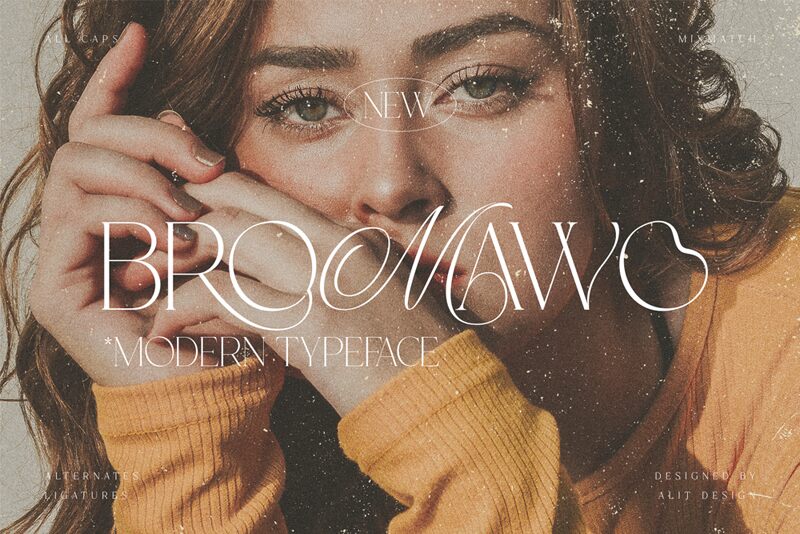
BROMAWO font, designed by Alit Design, is a captivating display font that combines the elegance of a script font with the charm of a serif style. With its modern sans serif elements and unique script-style letters, BROMAWO stands out from your regular font collection.
This extra-light typeface is ideal for various projects like magazine cover designs, brochures, and flyers. Its versatility extends to Instagram ads and Canva Design as well, allowing you to create eye-catching visuals with a touch of modernity. Moreover, BROMAWO is incredibly user-friendly in both design and non-design programs thanks to its comprehensive Unicode (PUA) support.
Bromawo